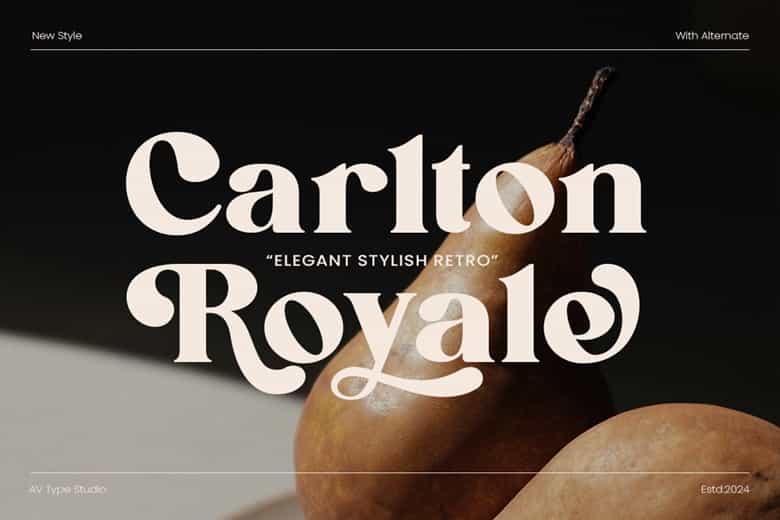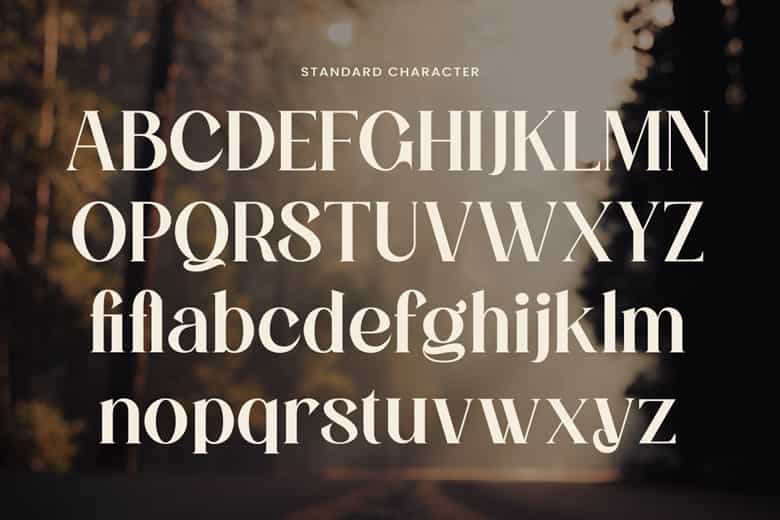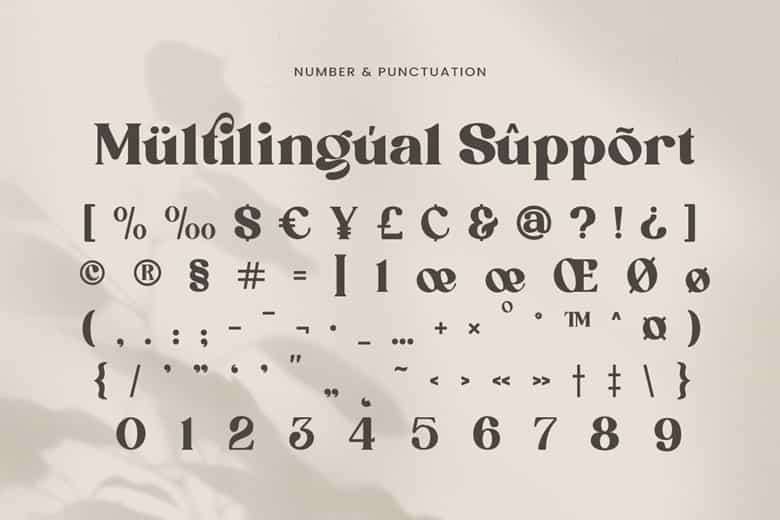
Meet Carlton Royale – a sophisticated and confident serif font that pulls off nostalgia while still being very much of the now. The design of Carlton Royale is retro and classic, so this type of paper is great for display projects that need to be noticed and be unique.